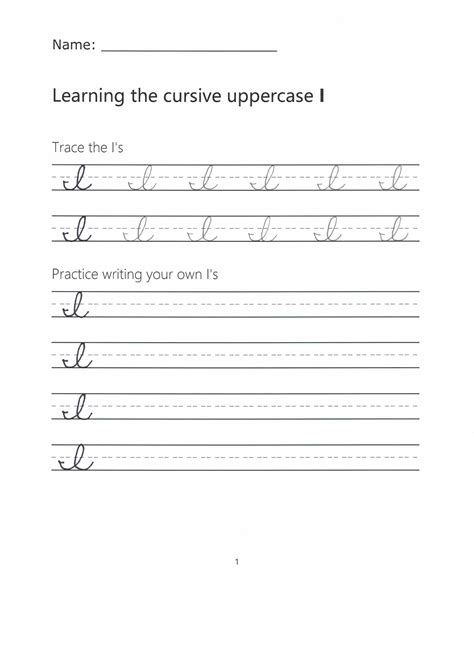
Mastering the art of handwriting is a skill that combines creativity and precision. One of the most elegant and timeless styles is cursive writing, particularly the letter I in cursive. This letter, though simple in appearance, requires a delicate touch and an understanding of the fundamental principles of cursive script. Whether you are a beginner or looking to refine your skills, learning to write the letter I in cursive can be a rewarding experience.
Understanding Cursive Writing
Cursive writing is a style of penmanship where letters are connected in a flowing manner. It is often taught in schools as a way to improve handwriting speed and legibility. The letter I in cursive is a fundamental part of this style, and mastering it can help you achieve a more fluid and elegant handwriting.
The Anatomy of the Letter I in Cursive
The letter I in cursive is composed of two main parts: the stem and the dot. The stem is a straight, vertical line, while the dot is placed above the stem. The key to writing a perfect cursive I lies in the precision of these two elements.
Step-by-Step Guide to Writing the Letter I in Cursive
Writing the letter I in cursive involves a few simple steps. Follow this guide to master the technique:
Step 1: Positioning Your Paper
Start by positioning your paper correctly. Ensure that the lines are horizontal and that you have enough space to write comfortably. Hold your pen at a 45-degree angle to the paper for better control.
Step 2: Drawing the Stem
Begin by drawing a straight, vertical line from the baseline to the top line. This line should be smooth and even. The length of the stem should be consistent with the height of other lowercase letters in cursive.
Step 3: Adding the Dot
Once the stem is complete, place a small dot above the stem. The dot should be centered and slightly above the top line. This dot is what distinguishes the cursive I from other letters.
Step 4: Connecting to the Next Letter
If the letter I is part of a word, you will need to connect it to the next letter. For example, in the word โin,โ the cursive I would connect to the cursive N. Practice connecting the I to different letters to get a feel for the flow of cursive writing.
๐ Note: Practice writing the letter I in cursive multiple times to develop muscle memory. This will help you write more fluidly and accurately.
Common Mistakes to Avoid
When learning to write the letter I in cursive, there are a few common mistakes to avoid:
- Uneven Stem: Ensure that the stem is straight and even. An uneven stem can make the letter look sloppy.
- Misplaced Dot: The dot should be centered above the stem. A misplaced dot can make the letter difficult to read.
- Inconsistent Size: Maintain a consistent size for the letter I. Inconsistent sizing can disrupt the flow of your handwriting.
Practice Exercises for the Letter I in Cursive
Practice is key to mastering the letter I in cursive. Here are some exercises to help you improve:
Exercise 1: Individual Practice
Write the letter I in cursive repeatedly on a lined sheet of paper. Focus on maintaining a consistent size and shape for each letter.
Exercise 2: Word Practice
Write words that contain the letter I in cursive. For example, words like โin,โ โis,โ and โitโ can help you practice connecting the I to other letters.
Exercise 3: Sentence Practice
Write sentences that include the letter I in cursive. This will help you practice the letter in context and improve your overall cursive writing skills.
๐ Note: Use a variety of practice exercises to keep your learning engaging and effective.
Tips for Improving Your Cursive Writing
Improving your cursive writing, including the letter I in cursive, requires patience and practice. Here are some tips to help you along the way:
- Use the Right Tools: Choose a pen with a fine tip for better control. Practice on lined paper to maintain consistency.
- Maintain Proper Posture: Sit comfortably with your back straight and your paper at a comfortable angle.
- Practice Regularly: Set aside time each day to practice your cursive writing. Consistency is key to improvement.
- Observe and Learn: Look at examples of cursive writing to understand the flow and style. This can inspire you to improve your own handwriting.
The Benefits of Learning Cursive Writing
Learning to write in cursive, including mastering the letter I in cursive, offers several benefits:
- Improved Handwriting Speed: Cursive writing allows you to write faster and more fluidly than print.
- Enhanced Legibility: With practice, cursive writing can be more legible and easier to read.
- Cognitive Development: Learning cursive writing can improve fine motor skills and cognitive development.
- Personal Expression: Cursive writing allows for personal expression and creativity in handwriting.
Mastering the letter I in cursive is just the beginning of your journey into the world of elegant and fluid handwriting. With practice and dedication, you can achieve a beautiful and legible cursive script that reflects your unique style.